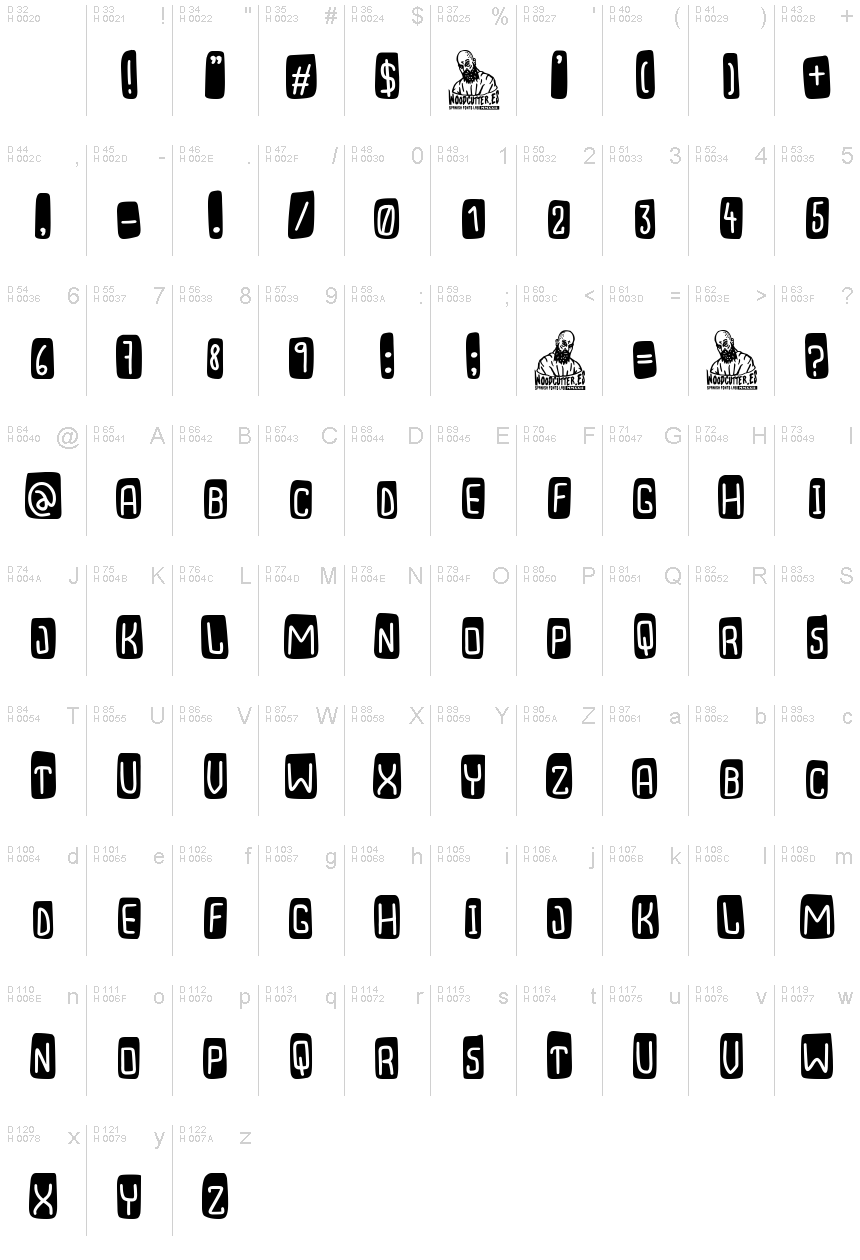
Sandcastle Festival
Sandcastle Festival font, crafted by Woodcutter, is a striking display typeface that captivates with its condensed width and unique decorative style. With its playful, negative space design, this font commands attention and adds a whimsical touch to any project. Perfect for creating eye-catching headlines, event posters, or artistic invitations, Sandcastle Festival offers versatility for both digital and print applications.
Designers seeking a free font download will find it ideal for bringing a creative flair to branding materials where bold expression is key. Whether used in festivals or creative marketing campaigns, this distinctive typeface enhances the visual appeal of any design.